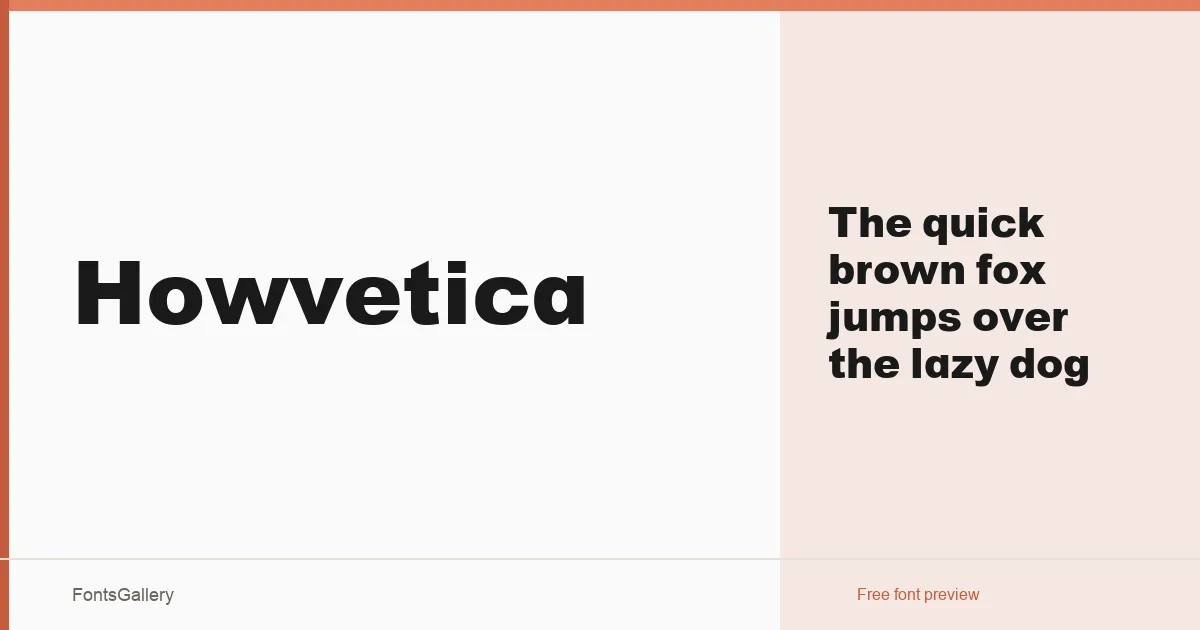
About Howvetica Font
Howvetica is a bold, modern sans serif typeface designed to make a strong visual impact across a variety of design contexts. Its clean, professional character gives it a versatile edge that suits contemporary design needs. This typeface commands attention while maintaining a polished and refined presence.
Howvetica's letterforms embody the hallmarks of a confident sans serif — clean lines, strong strokes, and a modern geometric sensibility. Its bold weight and professional tone give each character a sense of authority and clarity. The typeface strikes a balance between commanding presence and contemporary minimalism.
Howvetica excels in high-impact applications such as logos, posters, advertisements, headlines, and branding projects where visual strength and professionalism are essential. It works particularly well in large display settings where its bold character can take center stage. For complementary pairings, consider combining Howvetica with Aresink or Ballmain to create dynamic, well-balanced design compositions.